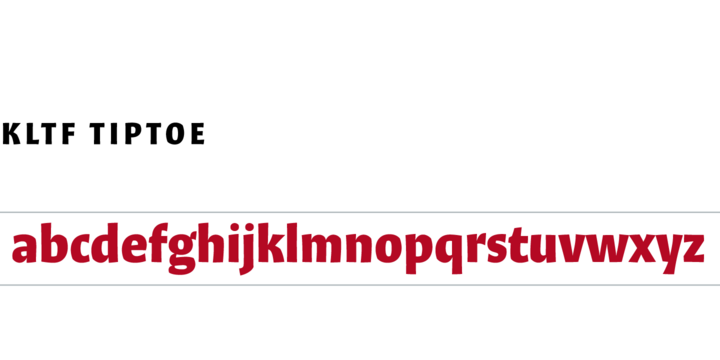
Bored by typefaces so skinny that you don't dare touch them in fear you might break their curves? Tiptoe is different. Tiptoe doesn't care. It is Bold. ExtraBold. Black. UltraBlack. And curves are broken already. So, no need to worry.
Compared to Litteratra, Tiptoe is utterly modest as regards the character set: it comes with uppercase, lowercase, small caps, alternate forms, with oldstyle and lining numerals, both proportional and tabular, with superiors, inferiors and arbitrary fractions, paragraph numerals, arrows and – feet.
Tiptoe Bold
Tiptoe ExtraBold
Tiptoe Black
Tiptoe UltraBlack